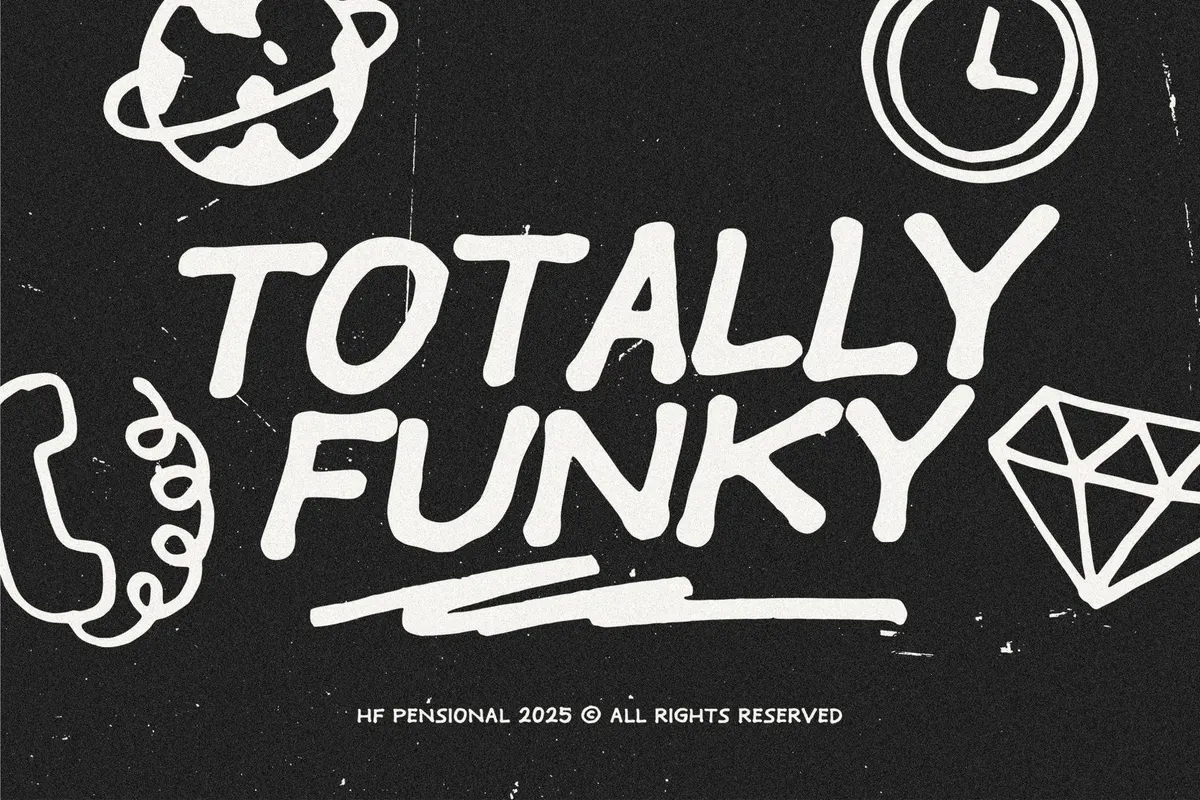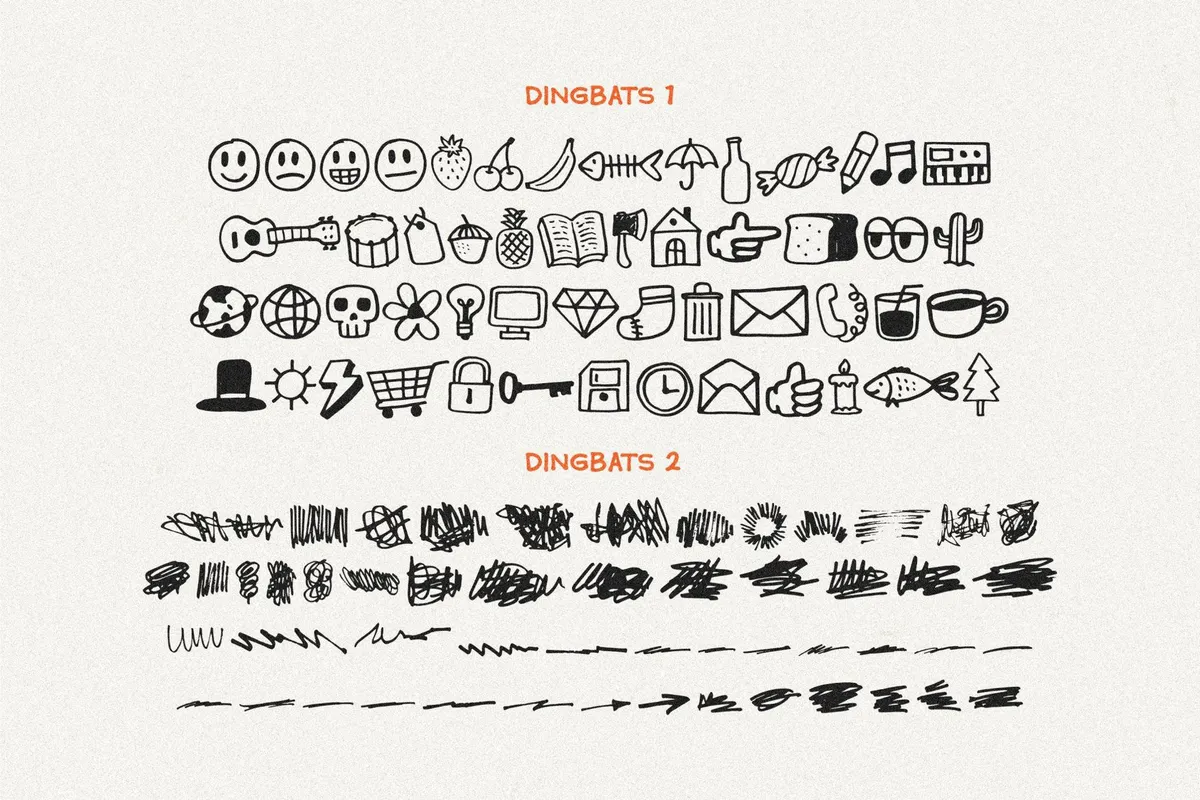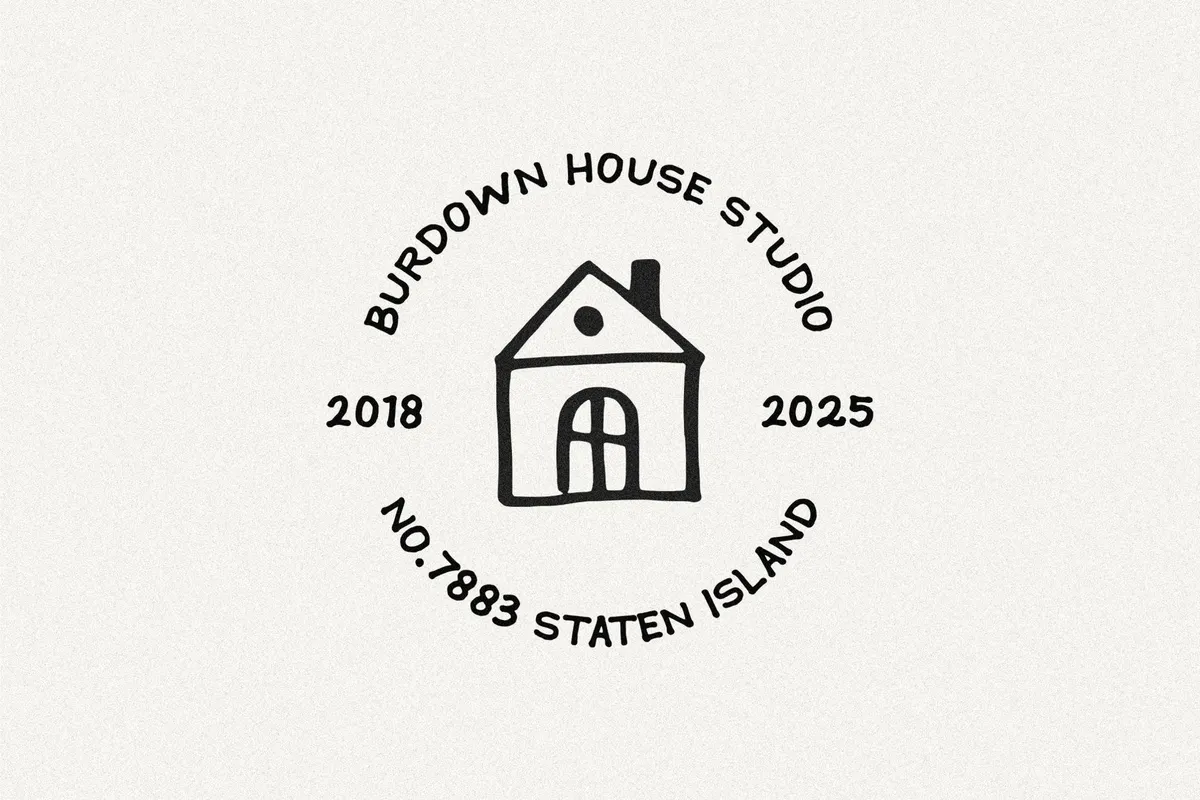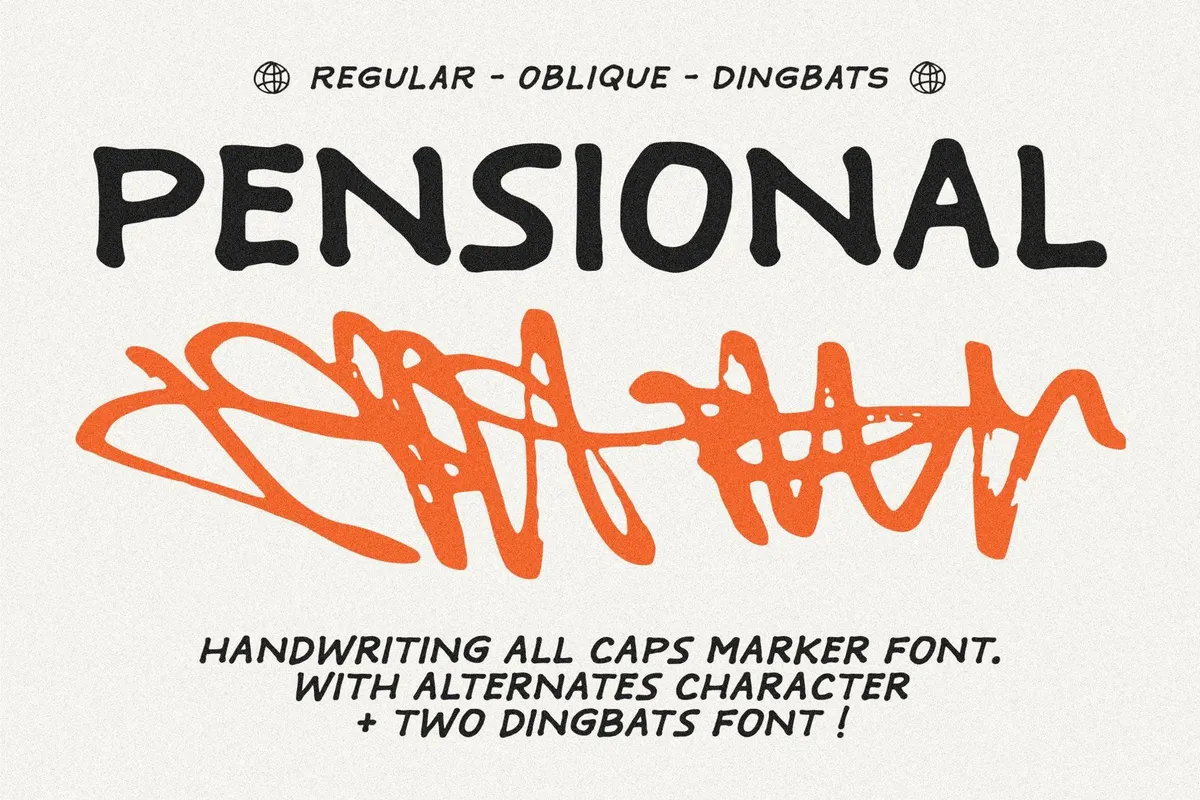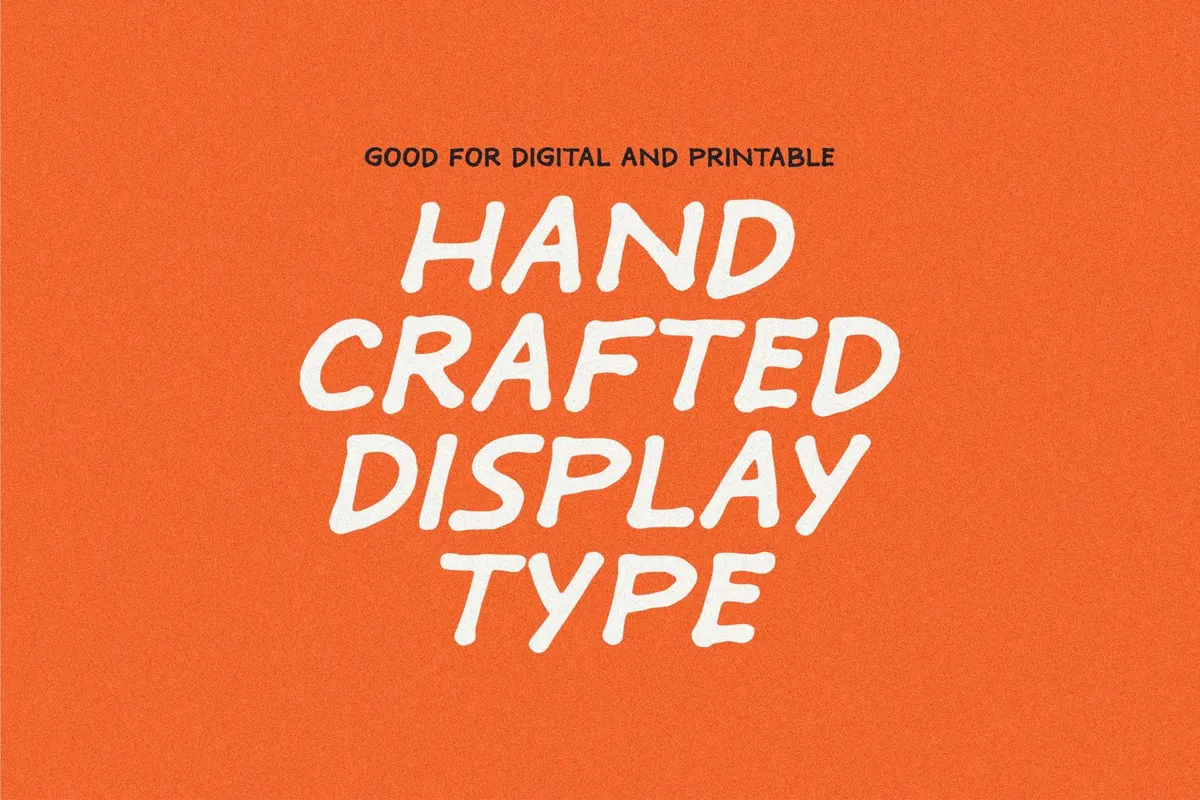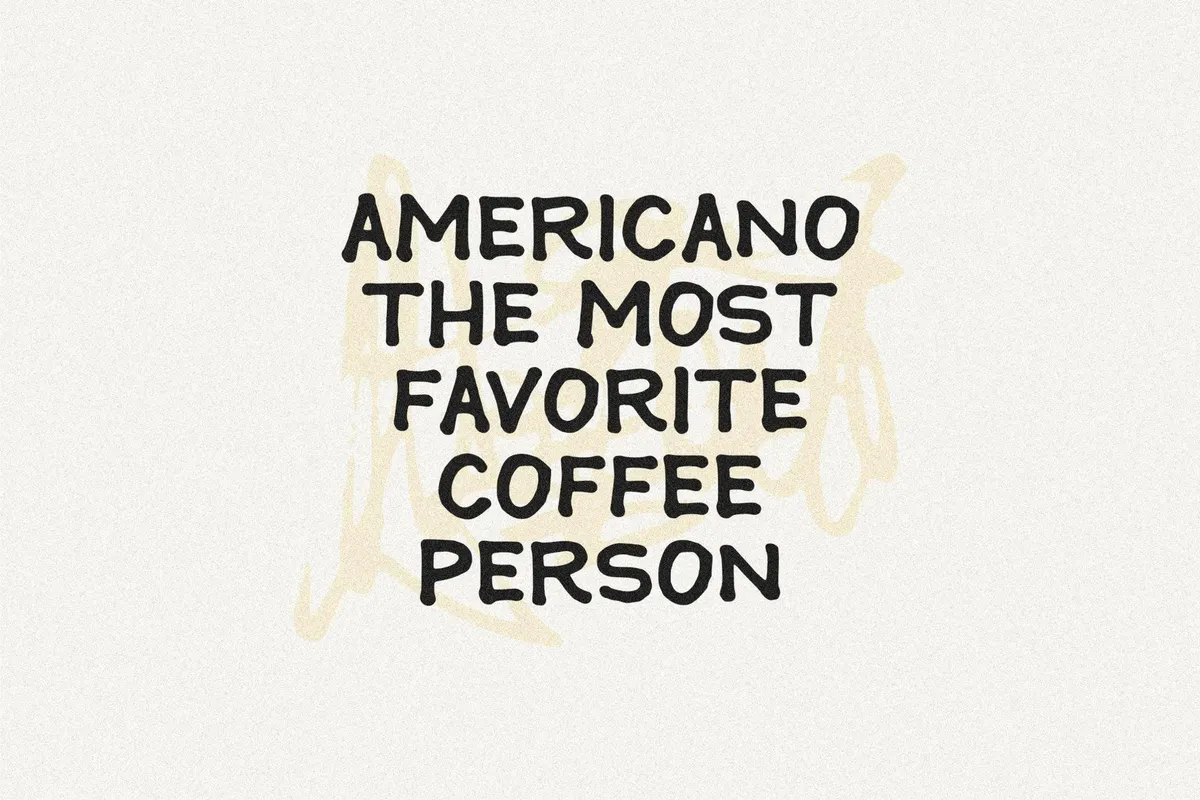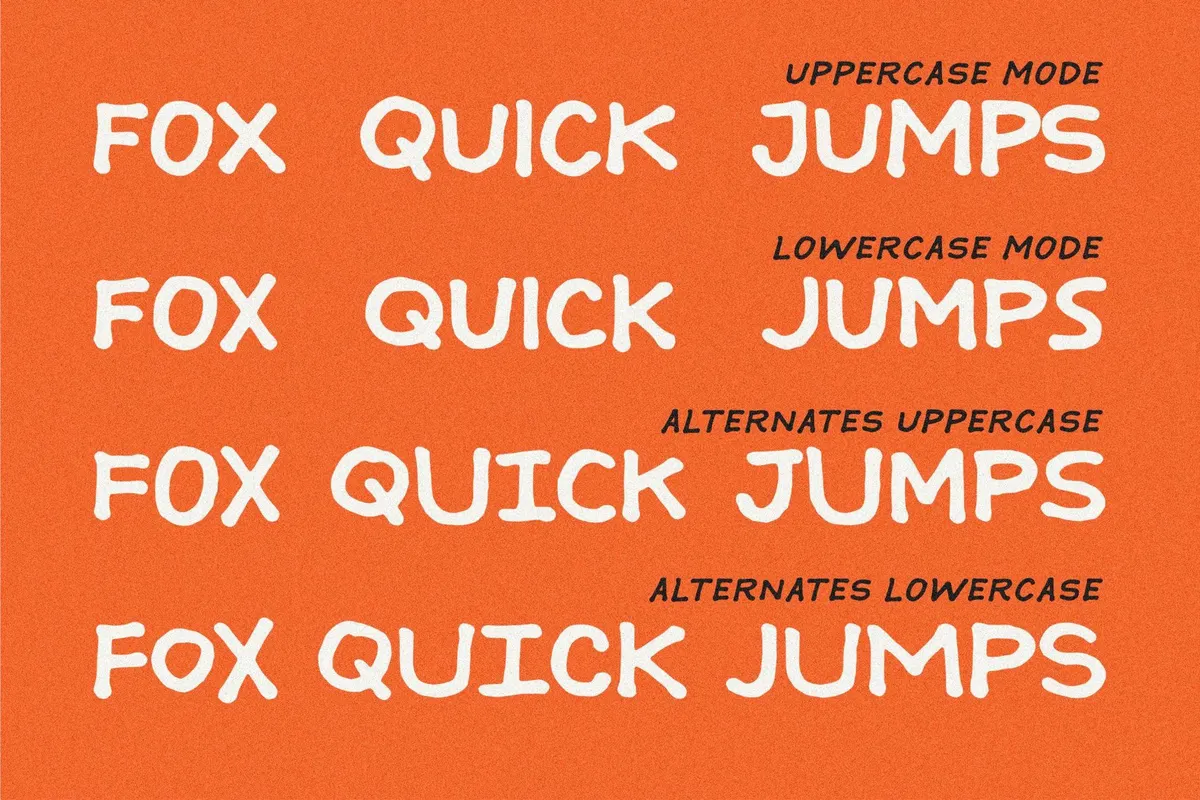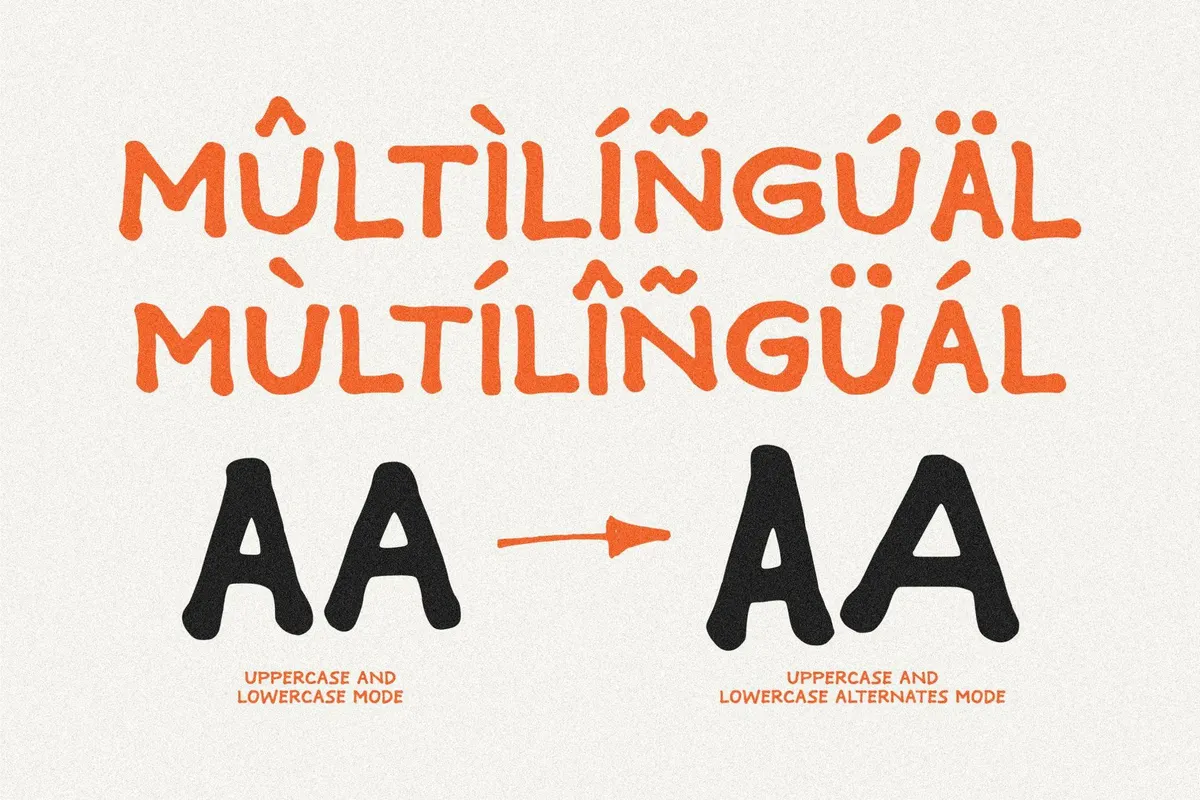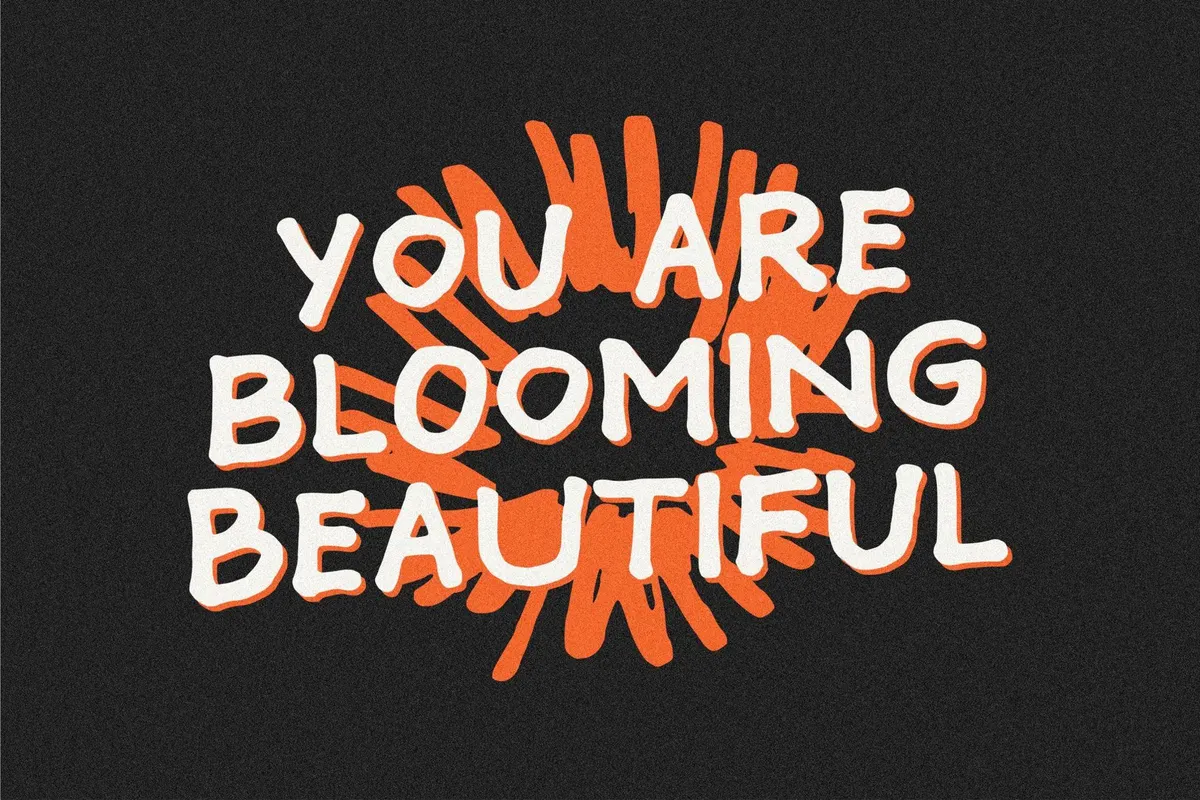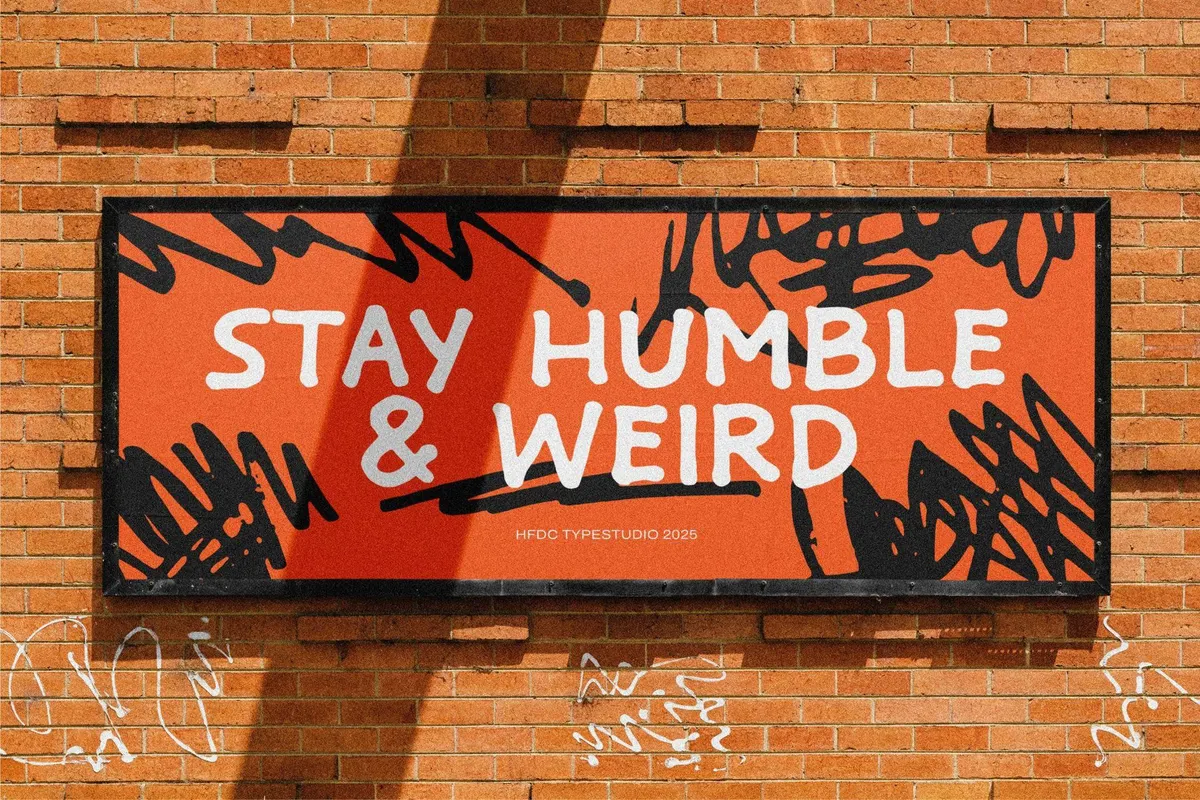
HF Pensional - Marker Handwriting Font + Dingbats
HF Pensional is a bold and expressive all-caps handwriting font inspired by marker strokes. Designed to capture a spontaneous, hand-drawn feel, this font comes in two styles: Regular and Italic, complete with alternate characters and two unique dingbat fonts to enhance your visual creativity.
Perfect for designs that need a casual, energetic, and personal touch such as:
Posters, branding, merchandise, album covers, quotes, and social media content.
• All caps marker-style handwriting font
• Includes Regular and Oblique styles
• Alternate characters for more variety
• 2 Dingbats Fonts included:
• Dingbats 1: quirky, hand-drawn icons – from food and music to everyday objects
• Dingbats 2: expressive scribbles, sketchy lines, and marker-style arrows
• Supports multilingual characters
Good For:
• Expressive and personal design projects
• Urban art, digital graffiti, and hand-drawn branding
• Youthful, fashion-forward content and creator media